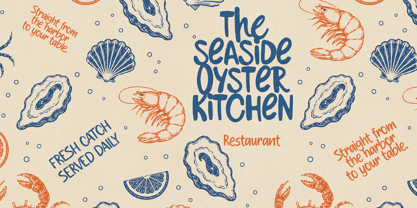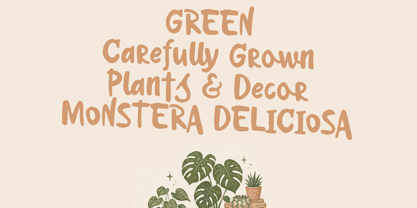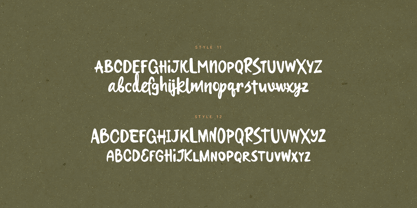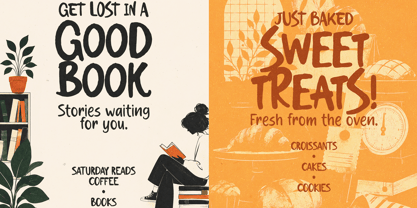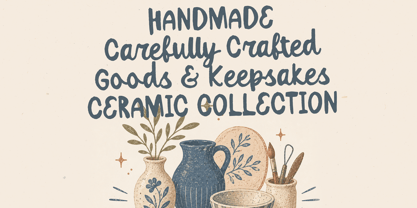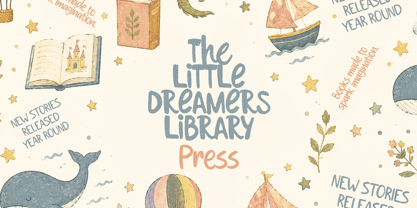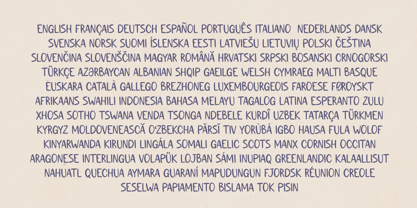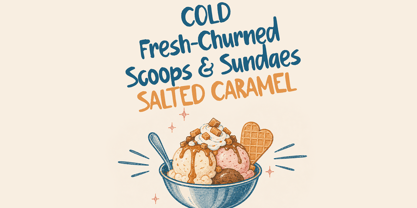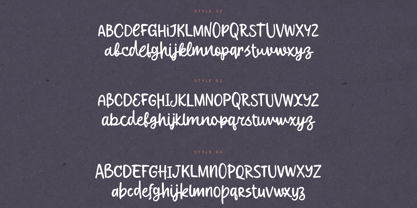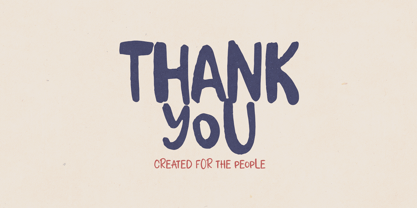
RoughlyYours
by VP Creative Shop
The RoughlyYours Font Family was designed by Vladimir Fedotov, Plamen Petrov and published by VP Creative Shop. RoughlyYours contains 12 styles and family package options. More about this family
Meet Roughly Yours, a charming handmade script font family crafted to celebrate the beauty of perfectly imperfect lettering. Inspired by hand-painted signs, cozy cafés, artisan packaging, children's books, farmers markets, vintage posters, and creative branding, Roughly Yours brings warmth, personality, and authenticity to every design.
Featuring 12 unique styles, Roughly Yours gives designers the flexibility to create playful, organic, and expressive typography with a handcrafted feel. Each style offers its own character while maintaining a cohesive handwritten aesthetic, making it ideal for branding systems, packaging collections, social media graphics, book covers, restaurant menus, product labels, greeting cards, posters, and creative marketing materials.
Designers: Vladimir Fedotov, Plamen Petrov
Foundry: VP Creative Shop